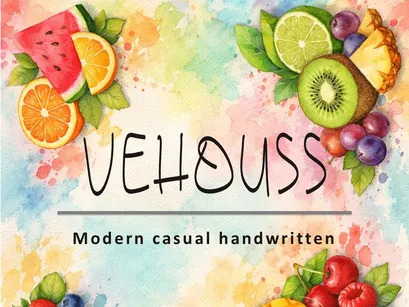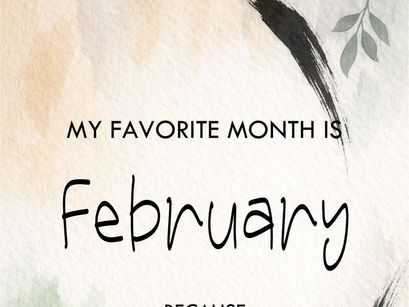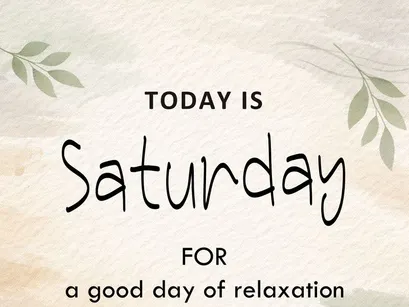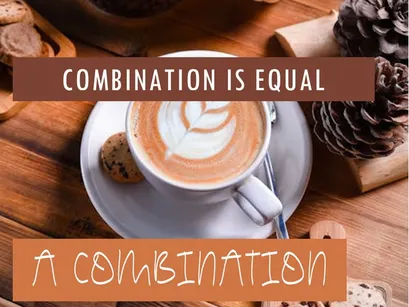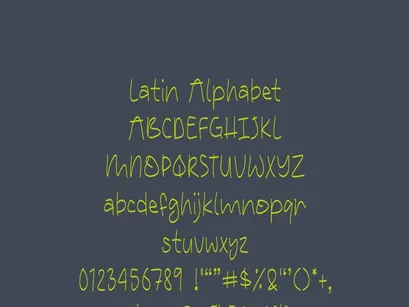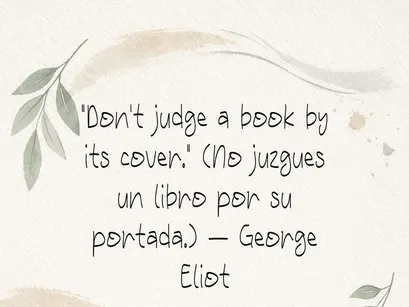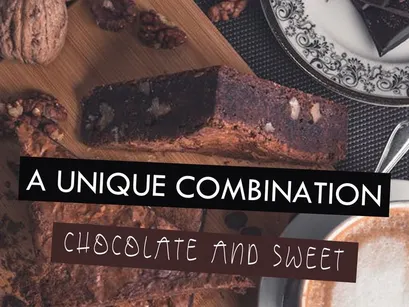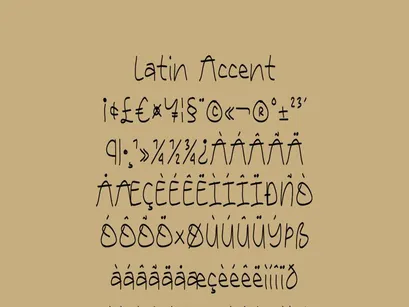
VEHOUSS is a modern, casual handwritten typeface inspired by free and natural writing. Its fine, flowing strokes convey a sense of calm and authenticity, perfect for creative projects, inspirational quotes, artisanal branding, eco-friendly packaging, or visual publications.
It features full Latin characters and accents, ideal for texts in English, Spanish, and other European languages.
Modern, relaxed, and natural style
Handwritten style with personality